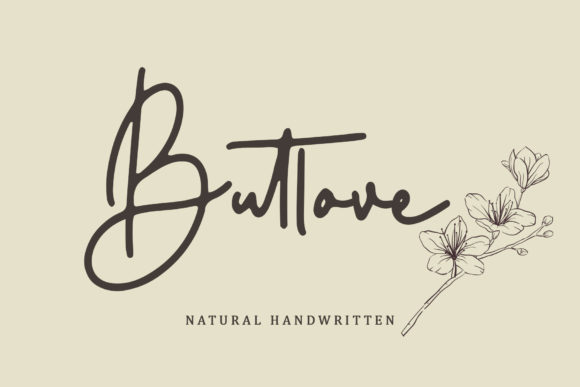
Embrace the enchanting world of Butlove, an exquisite script font family that unlocks endless possibilities for your creative endeavors. Immerse yourself in the beauty of its mesmerizing curves, reminiscent of a gentle caress that flows effortlessly across any surface.
Indulge in the harmonious union of sophistication and playfulness, where Butlove's intricate swirls and delicate strokes dance together to create a captivating visual symphony. Experience the joy of effortless expression, as this remarkable font family transforms your words into breathtaking works of art.
Butlove's remarkable adaptability knows no bounds, making it the perfect companion for a myriad of design projects. Let your imagination soar as you explore its versatility, from the ethereal allure of wedding invitations to the playful charm of social media posts.
With Butlove at your fingertips, the ordinary becomes extraordinary. Its graceful lines elevate the simplest of designs, infusing them with a touch of elegance and visual appeal. Prepare to be captivated by the beauty of Butlove, a font family that empowers you to create designs that resonate deeply with your audience.
Venture beyond the boundaries of convention and delve into the enchanting embrace of Butlove. Discover a world where your creativity knows no limits, and your designs blossom into masterpieces that captivate and inspire.